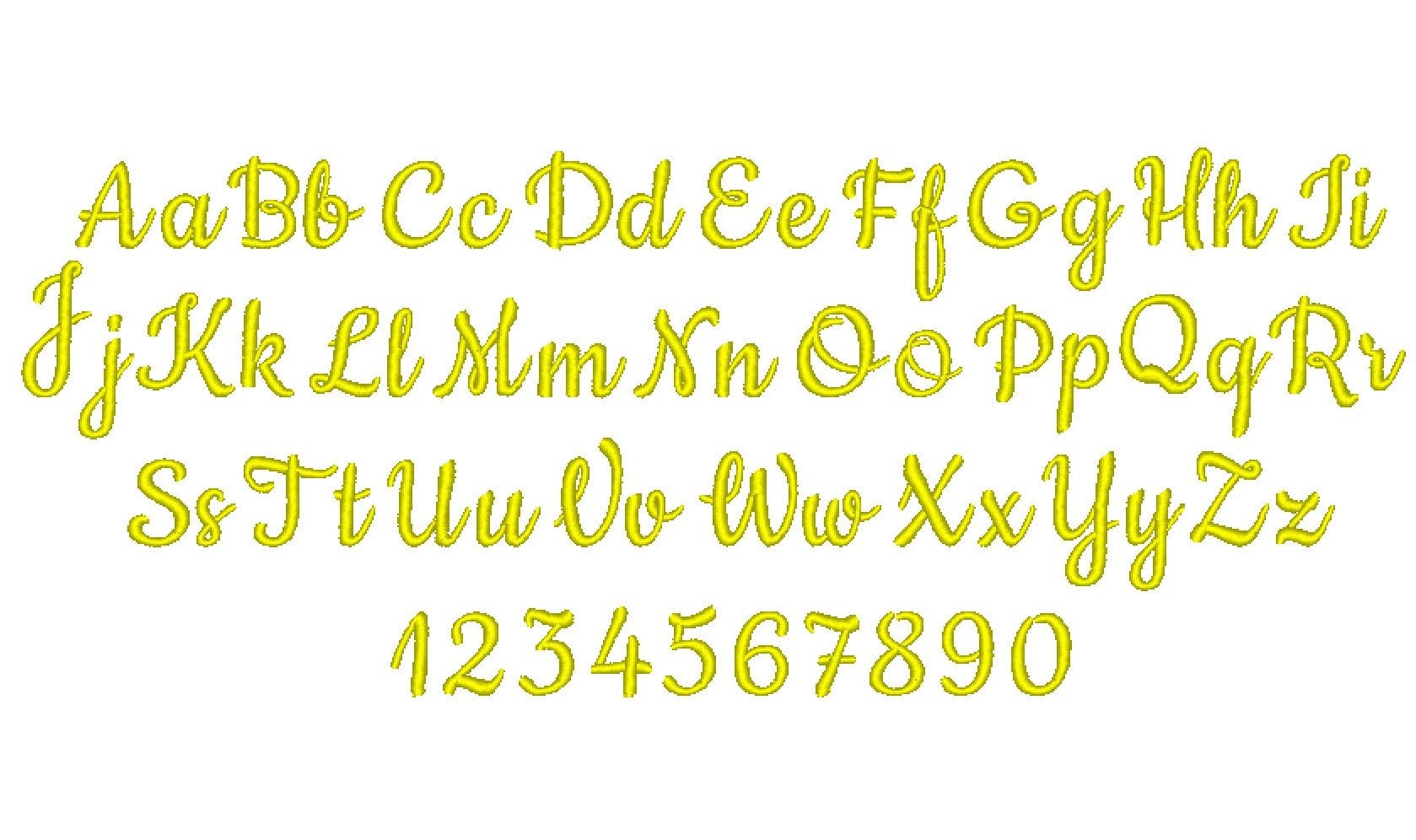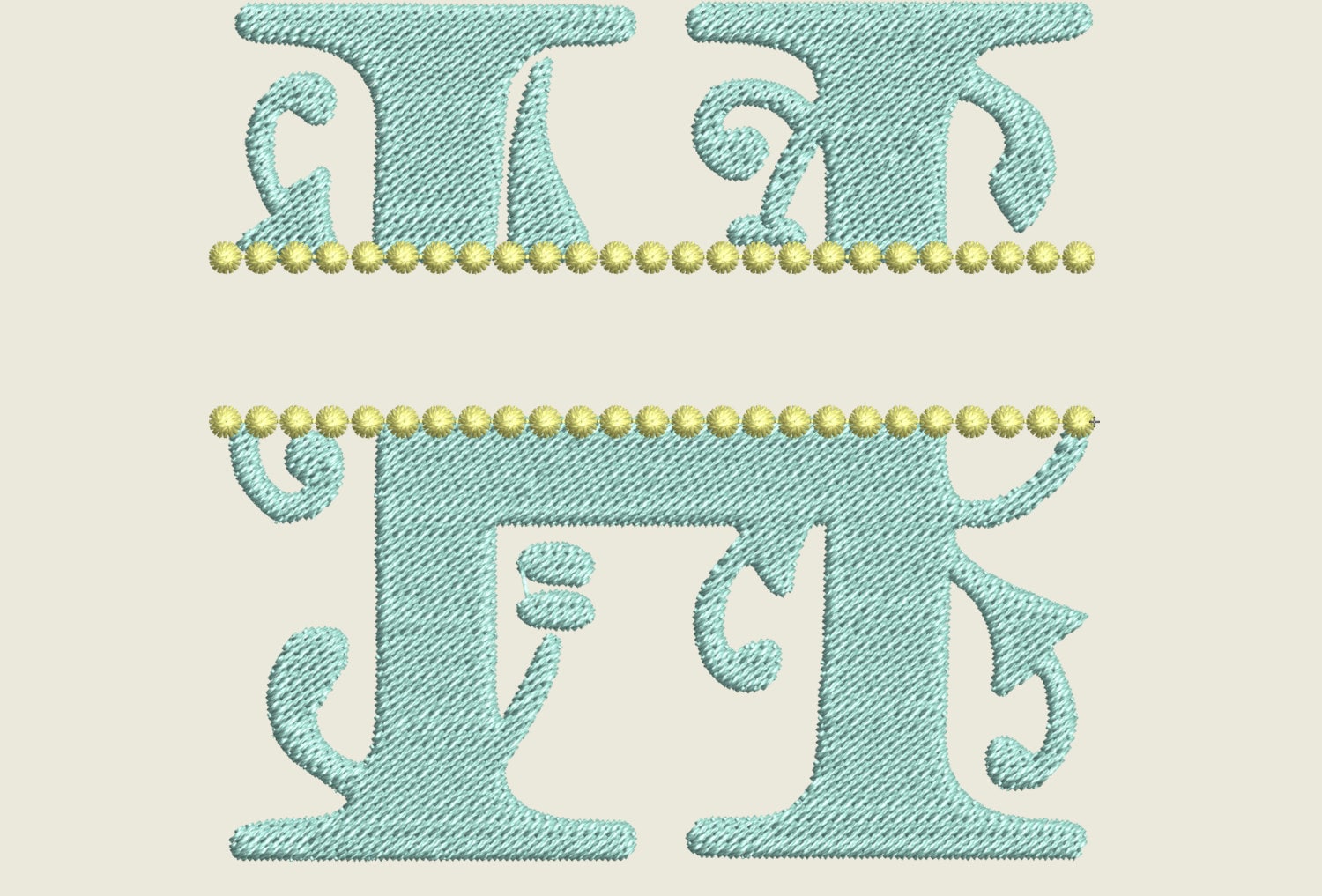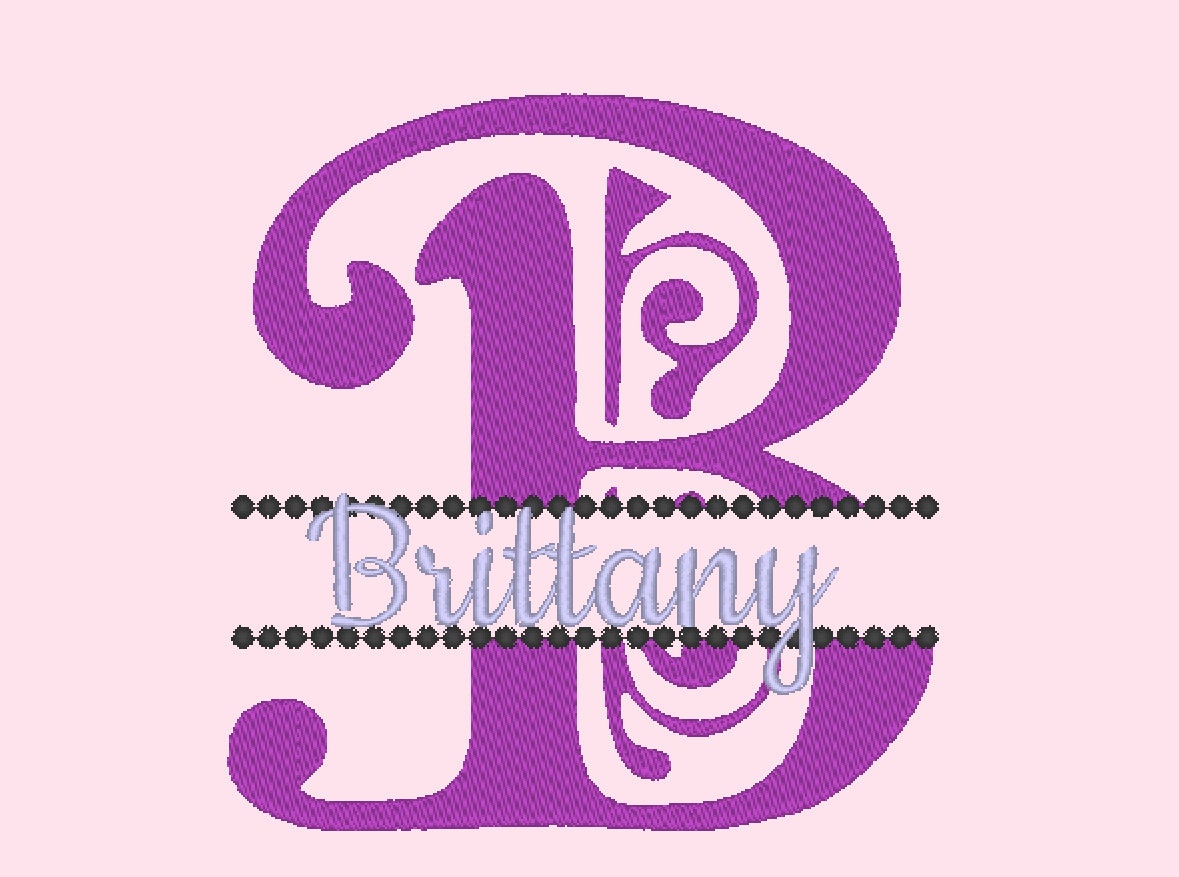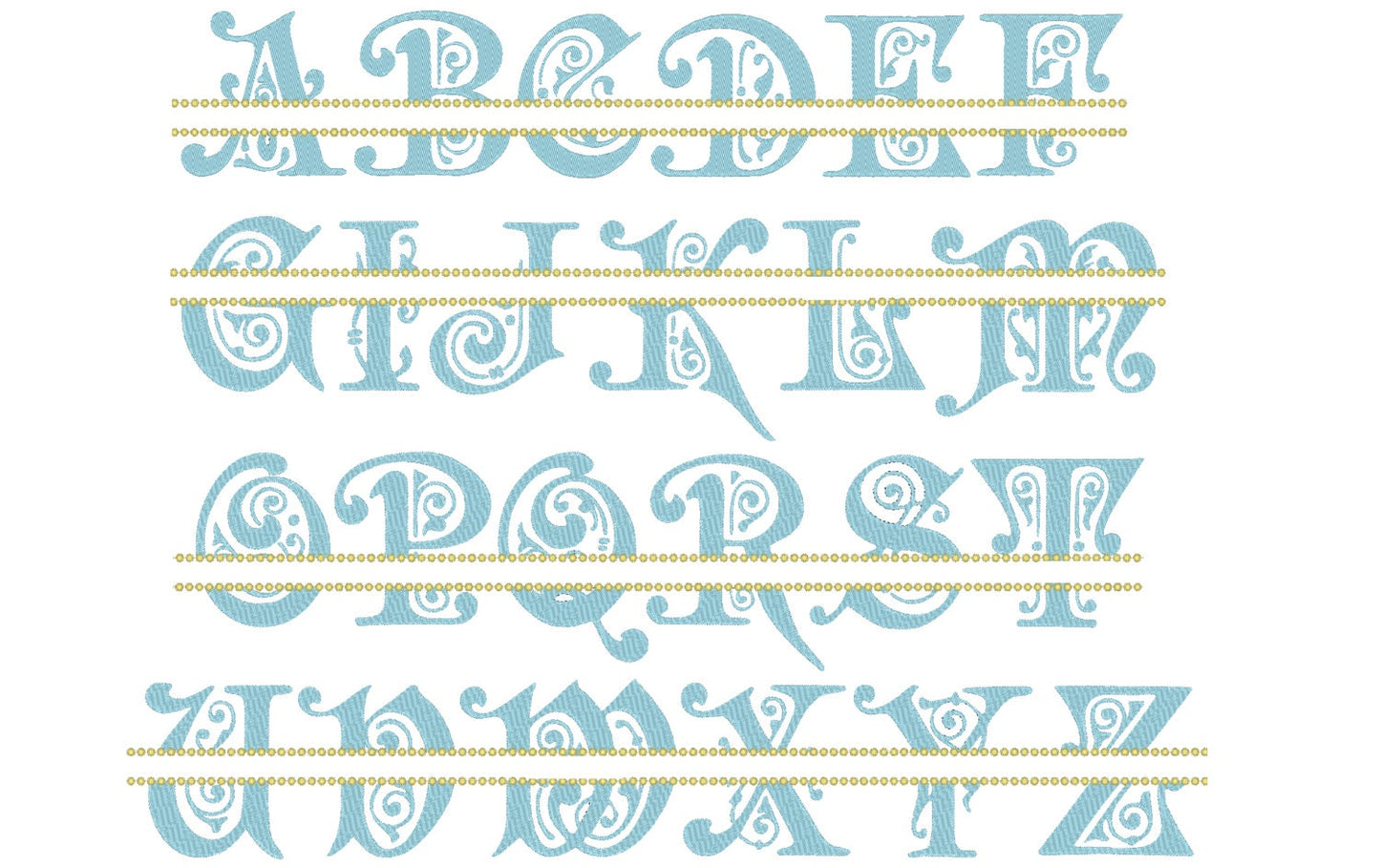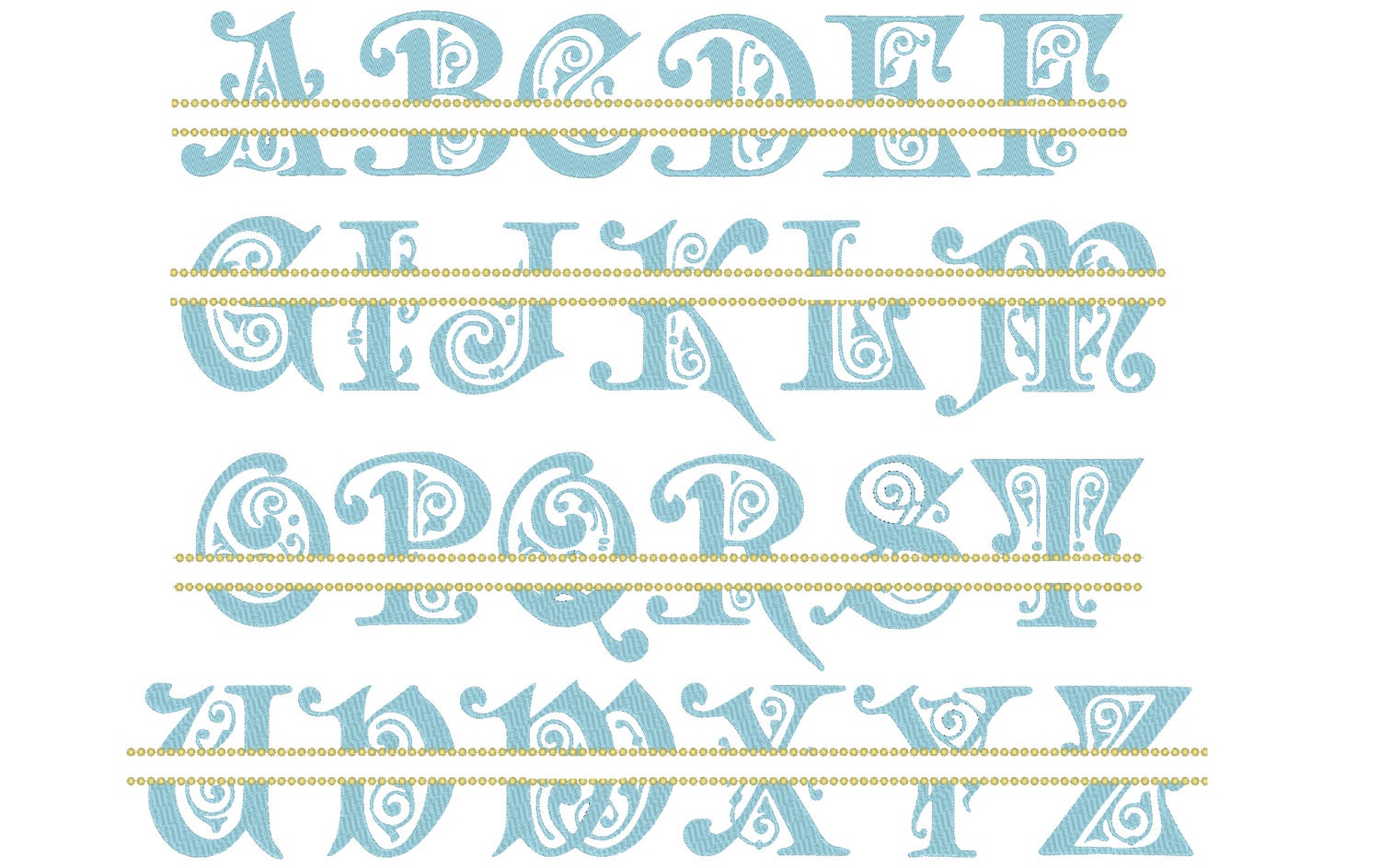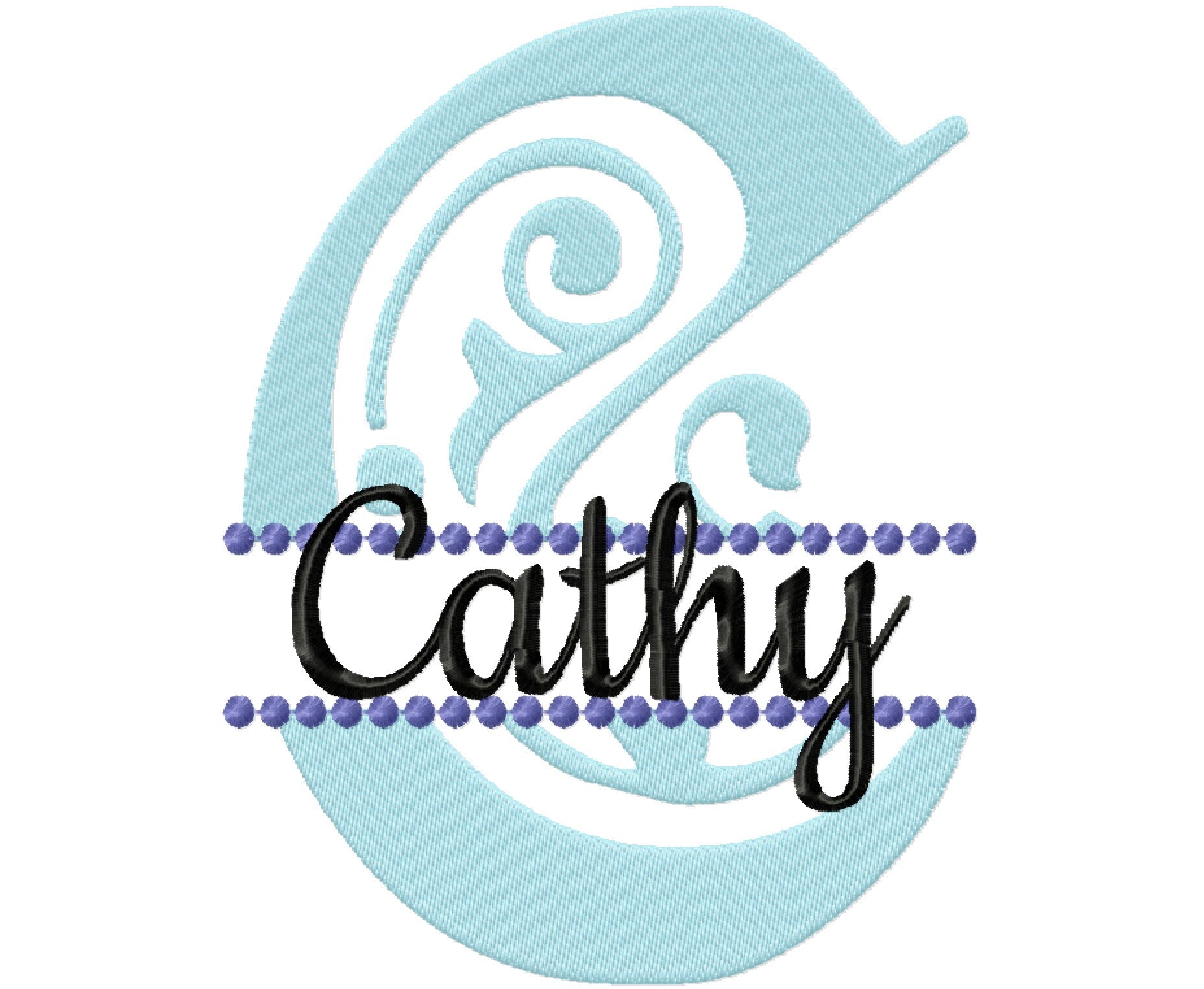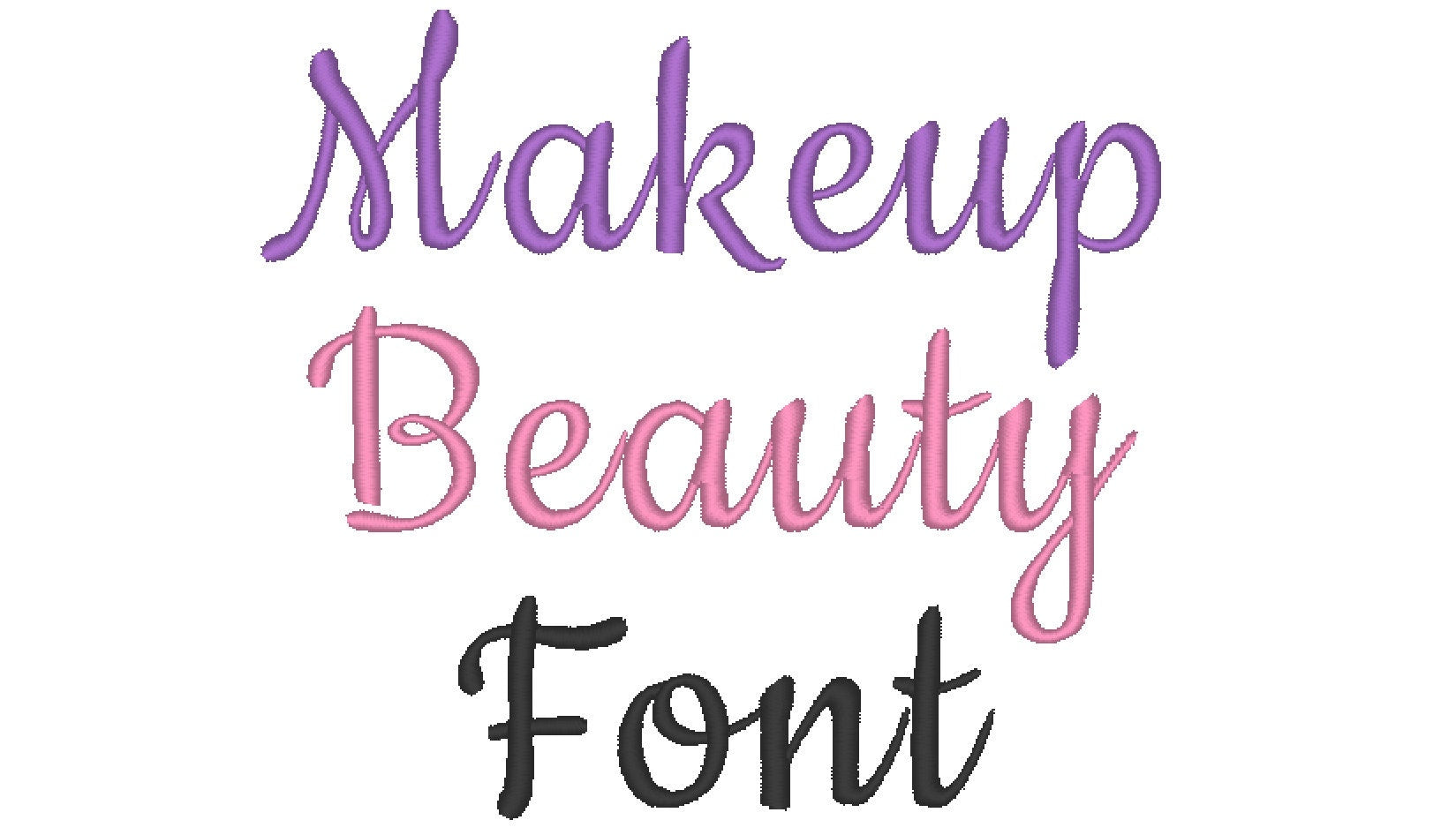
Or click to open the linkAn elegant split monogram in fill stitch with a matching mini font, for personalized towels, pillows and gifts.
The split monogram has all 26 letters in six sizes: 3, 4, 5, 6, 7 and 8 inches. The split leaves room for a name in the mini font, which has uppercase letters, numbers and punctuation in eight sizes from 0.4 to 2 inches.